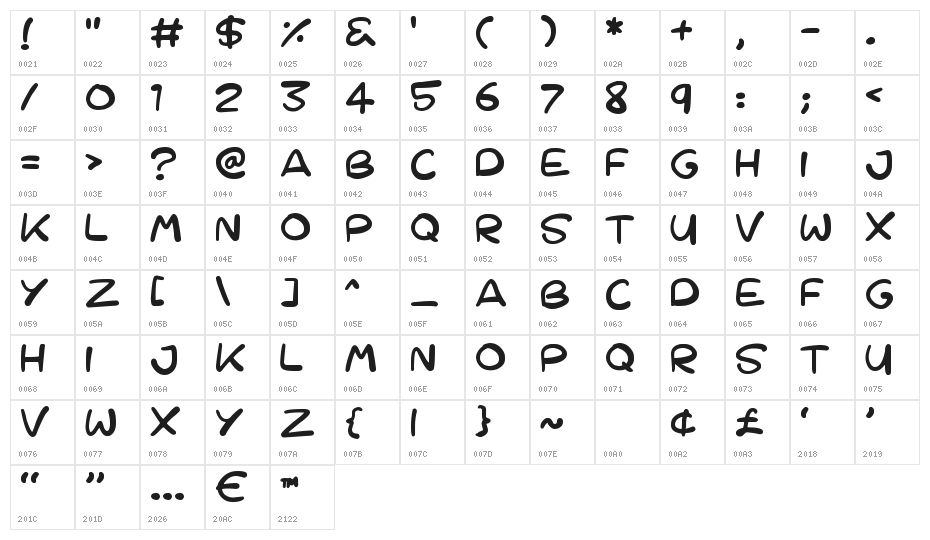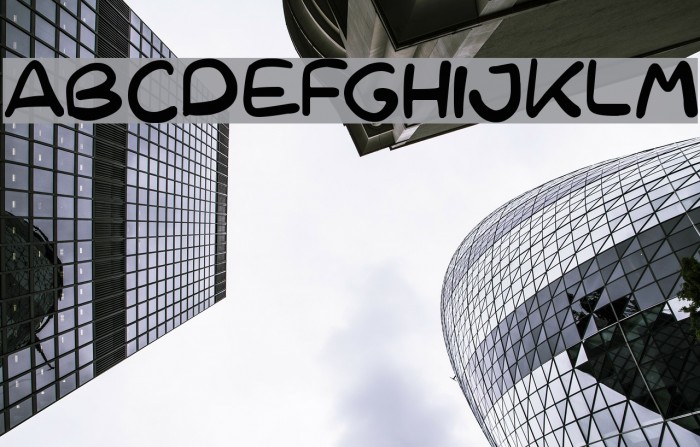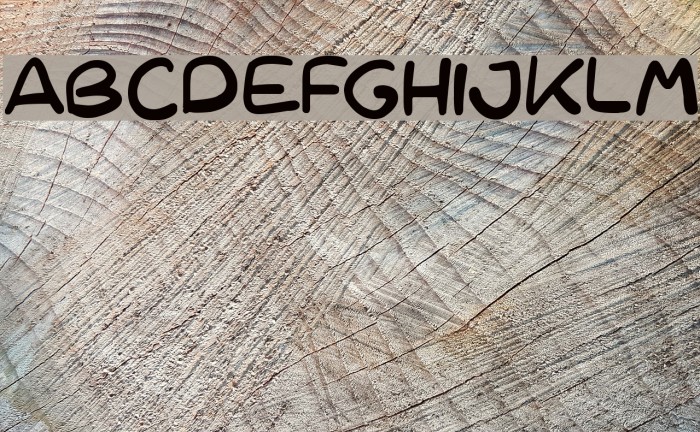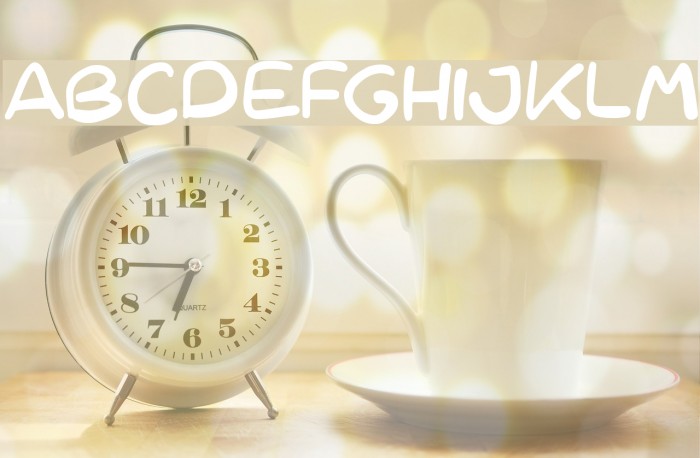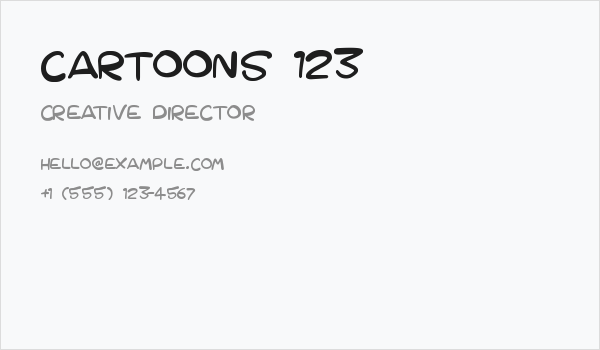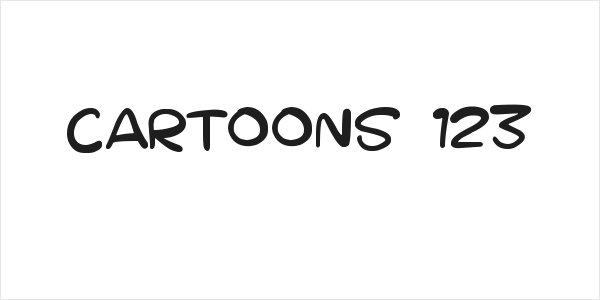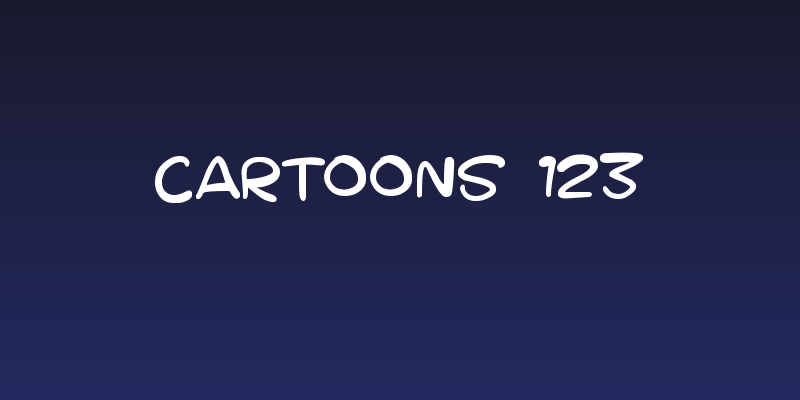
Cartoons 123 Font
Cartoons 123 Description
This playful and whimsical font features rounded, bold characters that convey a sense of fun and creativity. The letters are slightly irregular, adding a hand-drawn feel that is both approachable and lively. The font maintains consistent stroke thickness throughout, giving it a uniform appearance despite its casual style. It includes a full set of uppercase and lowercase letters, numbers, and a variety of special characters, making it versatile for different uses. The overall look is reminiscent of comic book lettering, making it ideal for projects that require a lighthearted and engaging touch.
| Overall Style | Playful, Comic |
| Proposed Projects | Ideal for children's books, comic strips, playful branding, and informal invitations. |